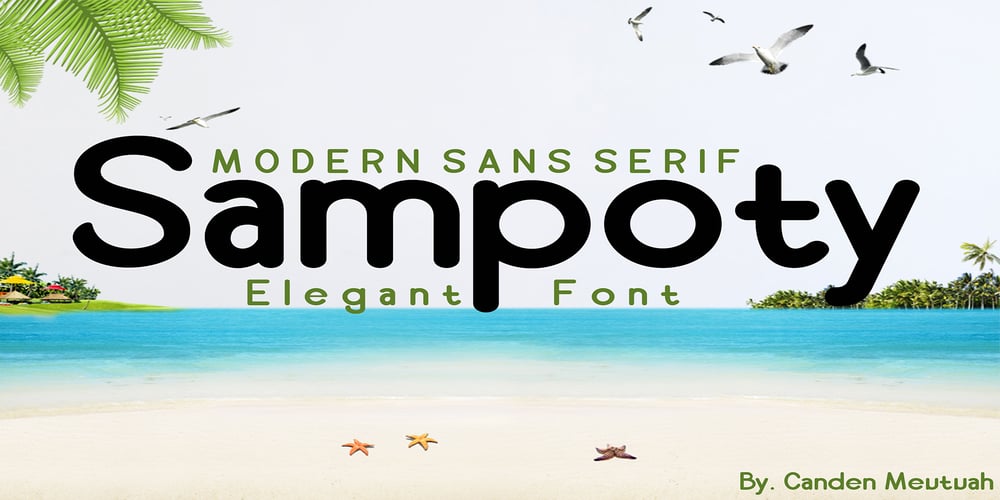
Sampoty
Sampoty font
Sampoty Font Family was designed by Canden Meutuah and published by Canden Meutuah. Sampoty contains 1 styles and family package options. A new elegant Sans serif font that will add a touch of luxury and style to your projects. This is a very versatile font that works well in both large and small sizes.This font is suitable for branding projects, logo design, clothing branding, packaging, magazine titles, advertisements, t-shirts, postcards, editorials, magazine headlines, product packaging, and displaying masculine and feminine qualities.it comes with full uppercase, lowercase, numbers and punctuation + multi-language support.if you want to have this font please click the link below.Thank You